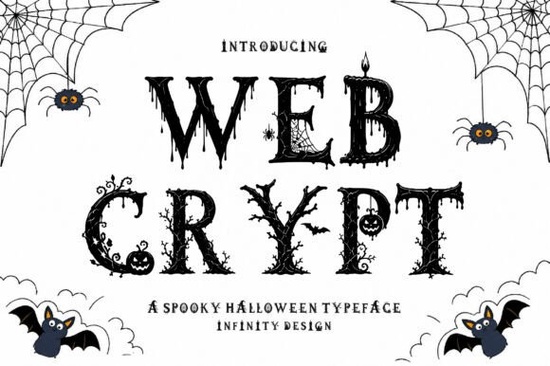
Finding the right typography for seasonal projects can be tricky, especially when you want something that feels authentic rather than cheesy. If you are working on autumn or October-themed graphics, the Web Crypt Font offers a highly detailed, illustrative approach to lettering. This specific typeface integrates spiders, pumpkins, and twisted branches directly into the characters, giving designers a built-in way to add seasonal magic without needing extra graphics.
What makes a good Halloween display font?
When browsing through various spooky lettering options for your October campaigns, you want to look for illustrations that do not compromise readability. A highly decorative typeface needs to balance intricate details with clear character shapes. This particular design weaves candles, ghosts, and bats into the strokes while keeping the core letterforms recognizable. For small business owners creating seasonal packaging or event flyers, this means your audience can easily read the headline while immediately understanding the theme.
How can crafters and POD sellers use spooky typography?
Print-on-demand sellers and crafters often need bold, eye-catching text for merchandise. Because the letters contain built-in illustrations, they work exceptionally well as the main focal point on apparel, tote bags, and ceramic mugs. You do not have to spend hours drawing extra vines or bats around the text. The detailed edges also look fantastic when printed using sublimation or cut from heat transfer vinyl for custom t-shirts.
Which projects work best with highly decorative letters?
Highly illustrative fonts are best reserved for short phrases, titles, or single words. Using them for long paragraphs makes the text difficult to read. They shine on specific craft and design projects, including:
- Event posters and party invitations
- Greeting cards and planner stickers
- Social media graphics and story templates
- Wood signs and laser-cut acrylic crafts
Quick checklist for your next seasonal design project
- Limit highly decorative text to three or four words maximum.
- Pair illustrative headings with simple, sans-serif body text for clear readability.
- Test your design in black and white first to ensure the intricate details remain visible without color contrast.